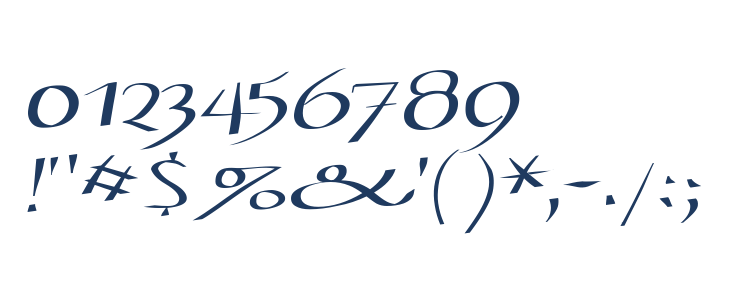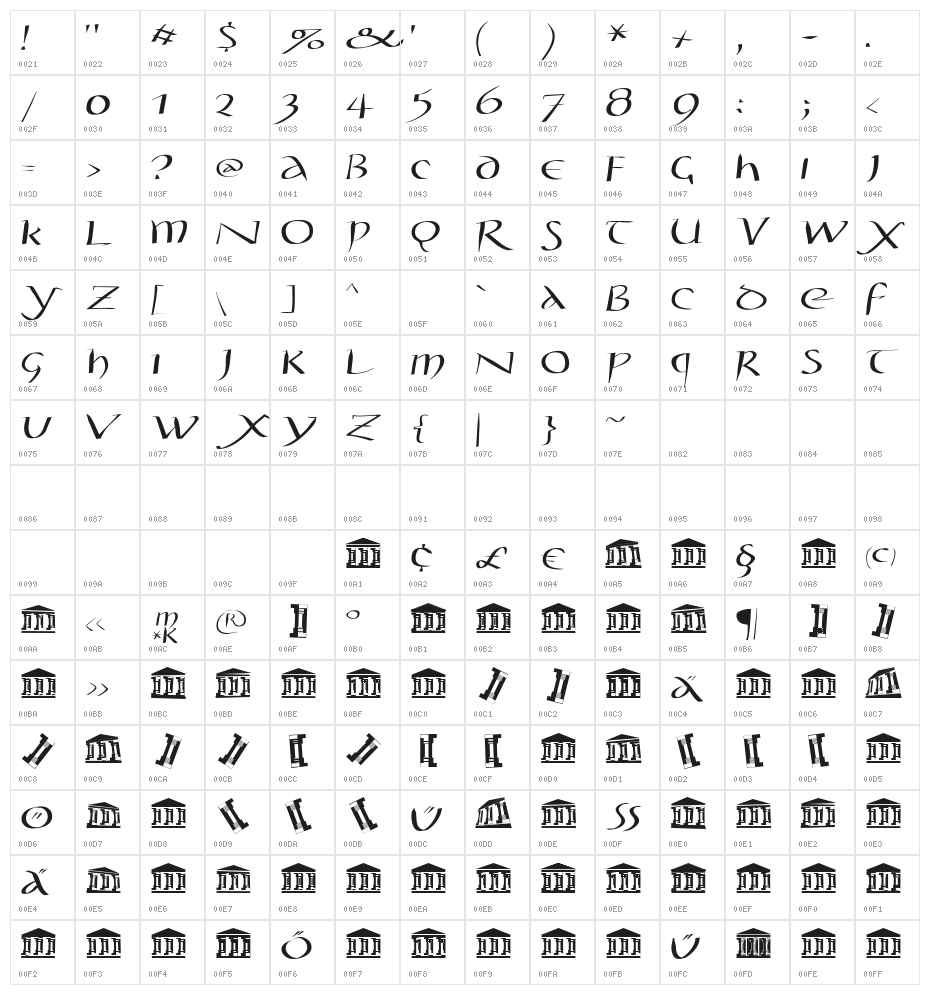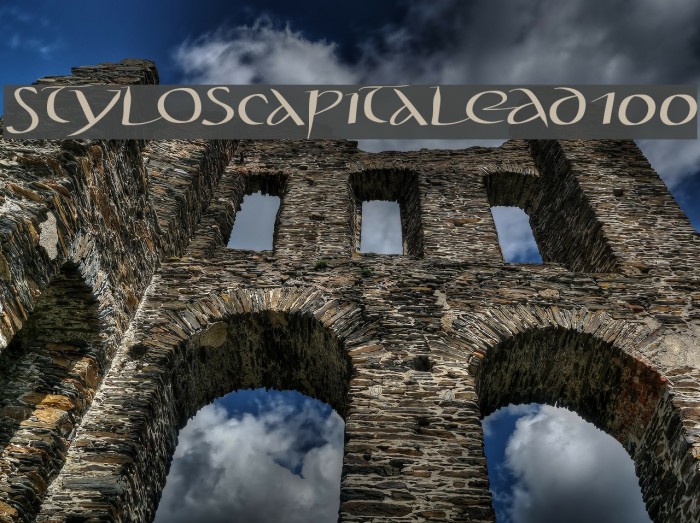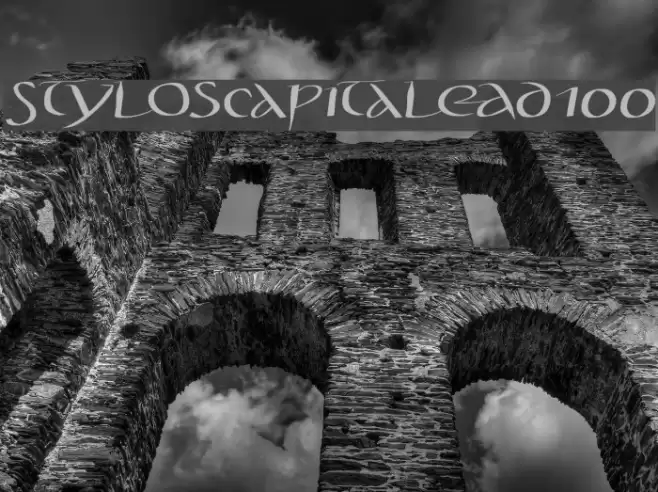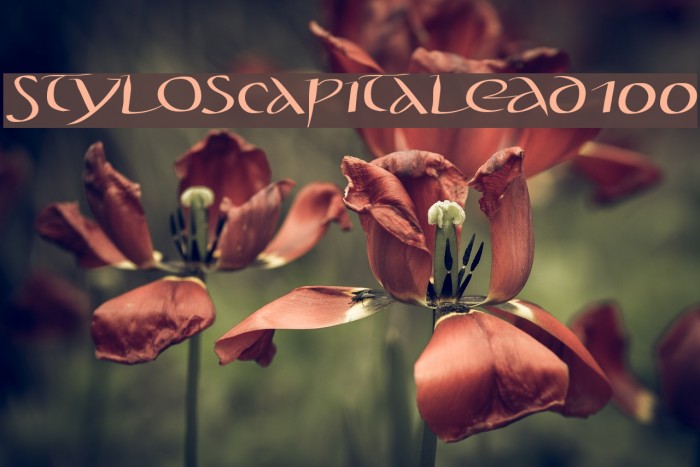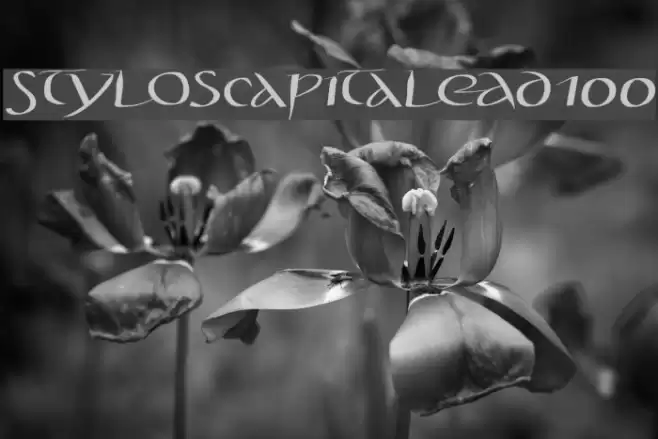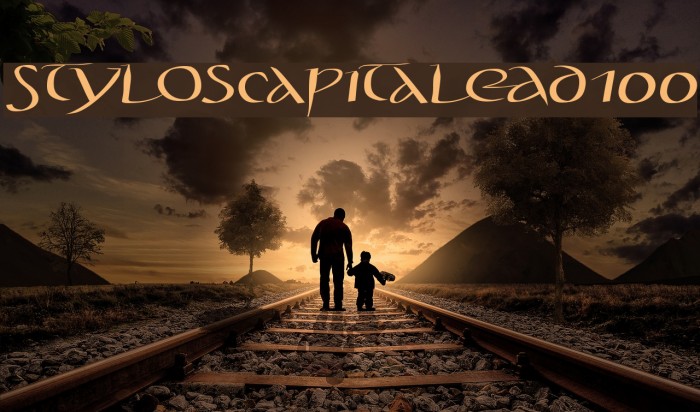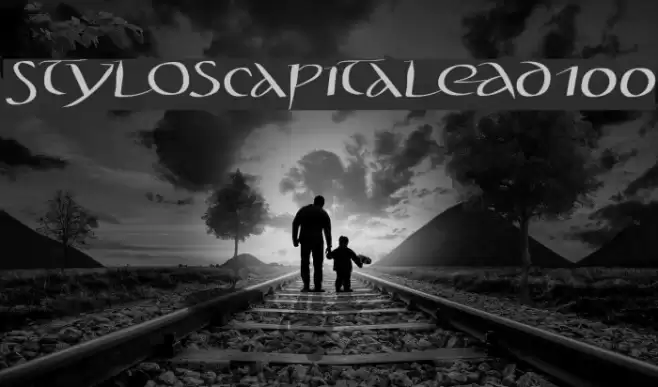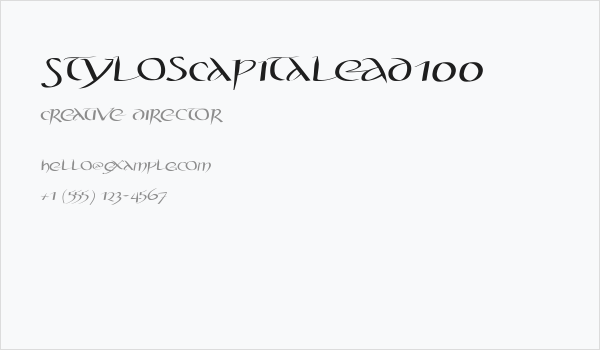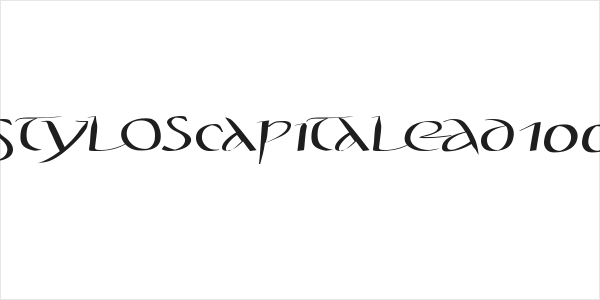
StylosCapitaleAD100 Font
StylosCapitaleAD100 Description
This font features a dynamic and artistic style, characterized by its sharp, angular strokes and fluid, calligraphic elements. The uppercase and lowercase letters exhibit a harmonious blend of elegance and edginess, with a distinct flair that suggests movement and energy. The numerals maintain this aesthetic, offering a cohesive look across all characters. Special characters are crafted with the same attention to detail, ensuring consistency throughout. The overall design is both modern and expressive, making it suitable for projects that require a bold and creative touch.
Overall StyleModern, Artistic
Proposed ProjectsIdeal for branding, posters, artistic projects, and any design requiring a bold, creative flair.